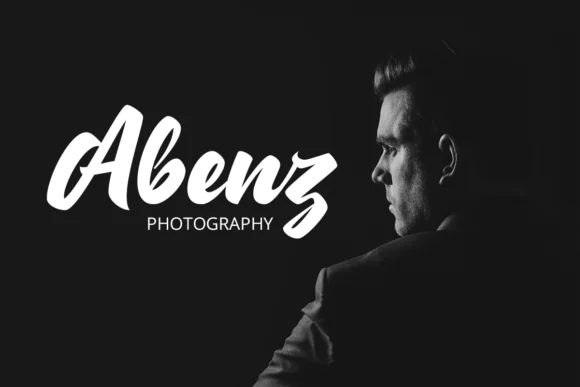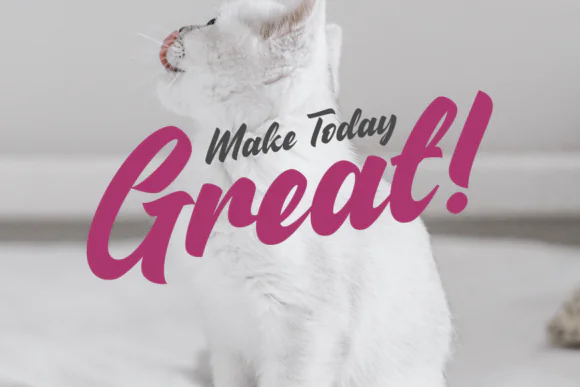
Heart Blues Font | Modern Playful Handwritten Script Typeface with Glyphs & Swashes for Crafts, Silhouette, Photoshop, Branding, Cards & Creative Designs
Add a fun, modern, and playful handwritten touch to your creative projects with Heart Blues Font, a charming script typeface designed for crafters, designers, and creative makers. With its lively handwritten flow and friendly personality, this font is perfect for designs that need a sweet, artistic, and expressive look.
Heart Blues works beautifully for craft projects, greeting cards, invitations, stickers, labels, social media graphics, branding designs, product packaging, printable wall art, t-shirt designs, sublimation projects, and personalized gifts. Its playful script style helps your text feel warm, creative, and full of character.
• Craft projects
• Silhouette designs
• Photoshop graphics
• Greeting cards
• Invitations
• Stickers and labels
• Social media posts
• Branding projects
• Product packaging
• Printable wall art
• T-shirt and hoodie designs
• Sublimation projects
• Personalized gifts
• Love-themed designs
• Creative typography artwork